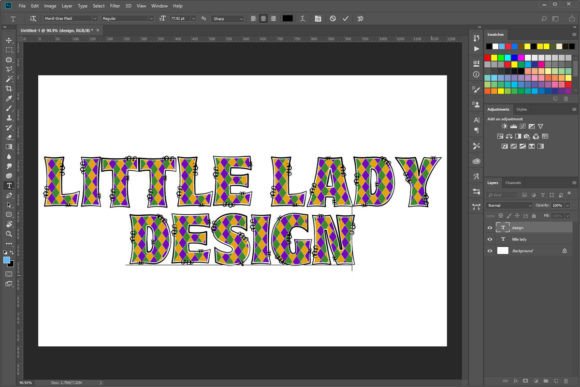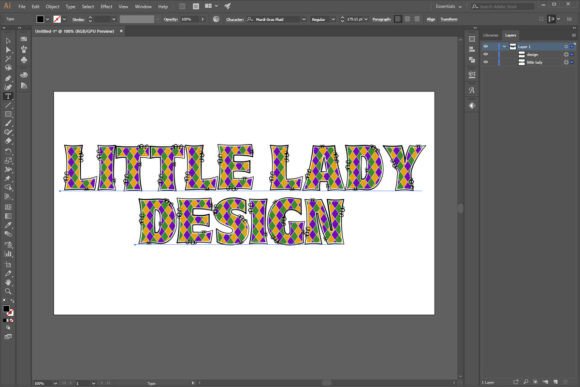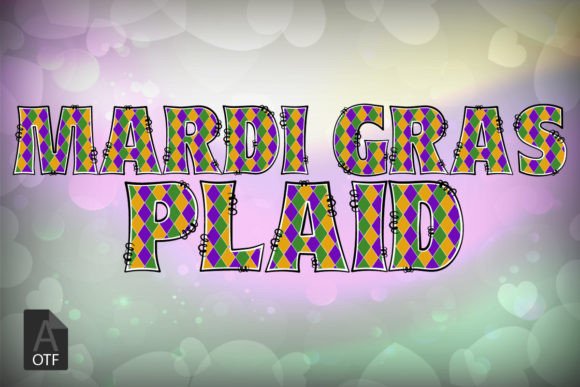
Introduction to Mardi Gras Plaid Font
Mardi Gras Plaid is a fun and festive color font.
This font is eye-catching and highly detailed Fall in love with it and bring your projects to the highest levels.
Key Features of Mardi Gras Plaid Font
Why Choose Mardi Gras Plaid Font?
Mardi Gras Plaid Font offers exceptional quality and versatility, making it a valuable addition to your design toolkit. Whether you’re creating for personal projects or commercial use, Mardi Gras Plaid Font delivers professional results.